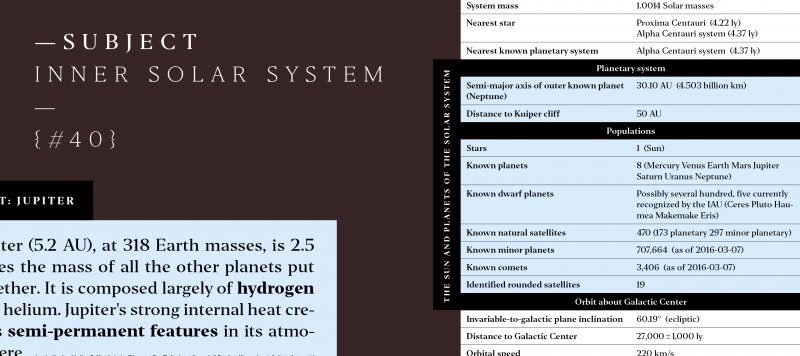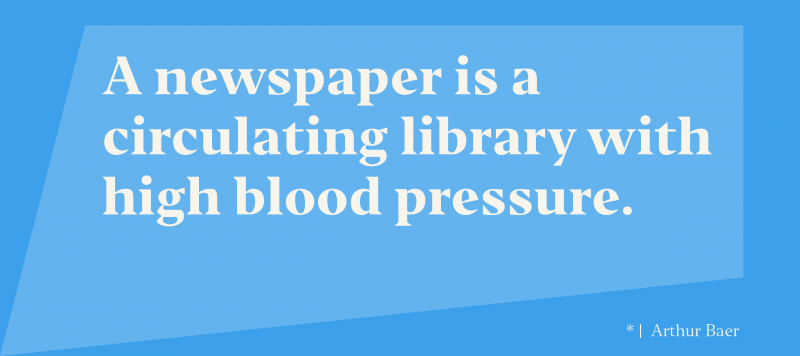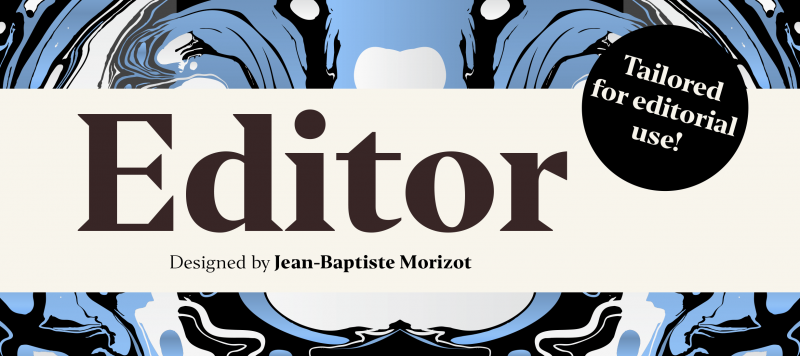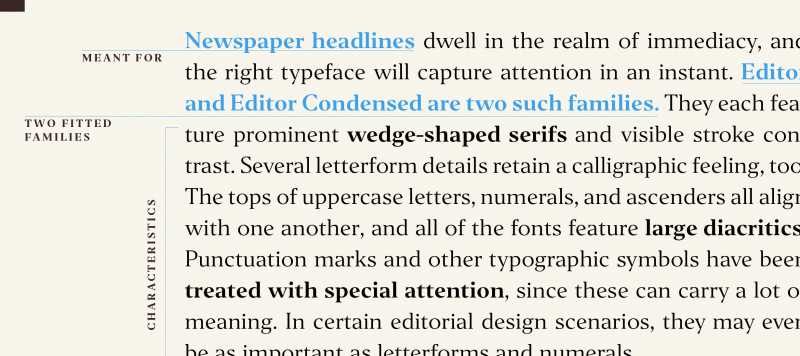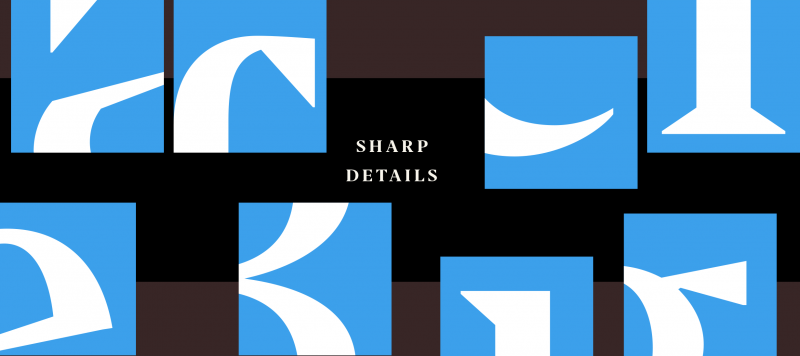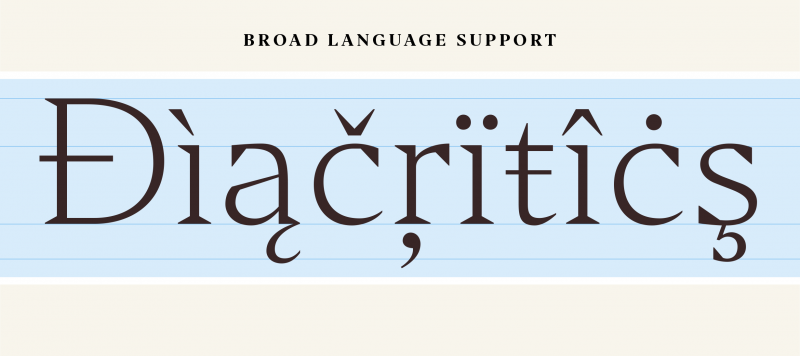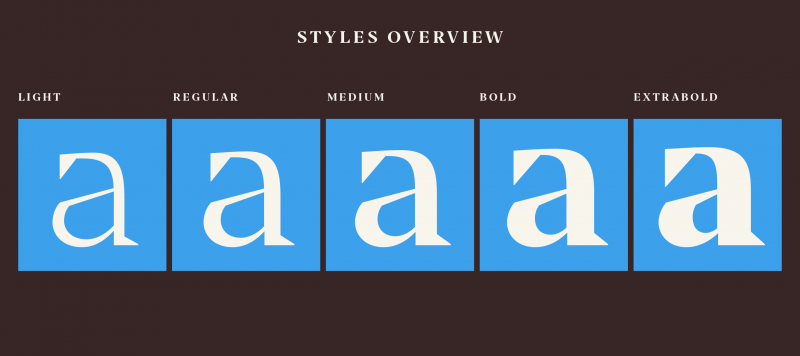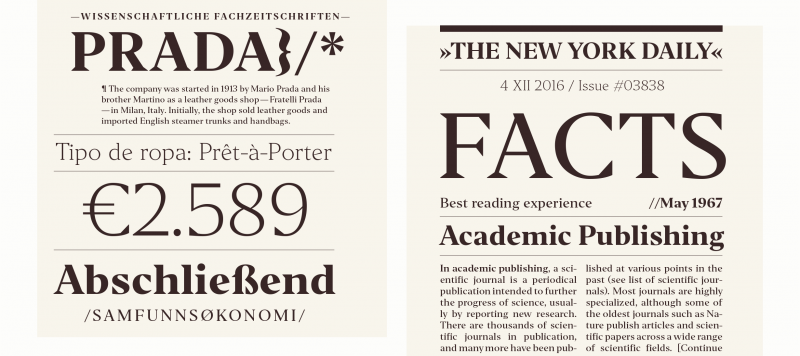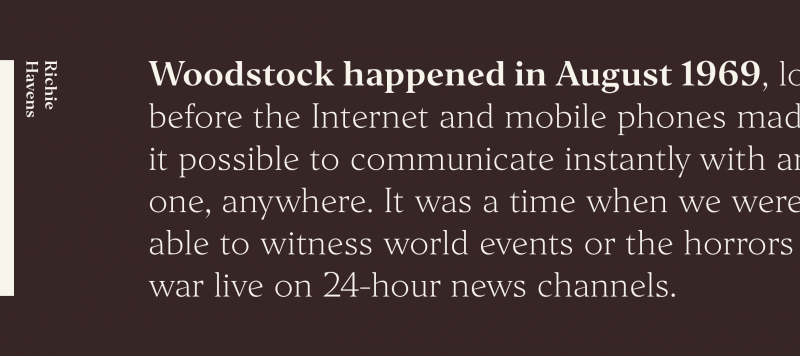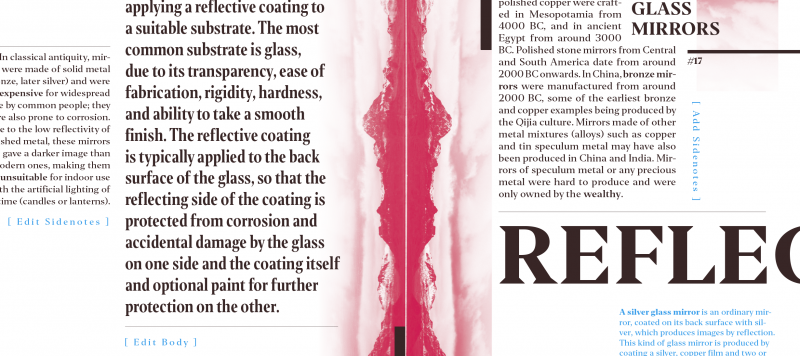
Newspaper headlines dwell in the realm immediacy, and the right typeface will capture attention in an instant. Editor and Editor Condensed are two such families. They each feature prominent wedge-shaped serifs and visible stroke contrast. Several letterform details retain a calligraphic feeling, too. The tops of uppercase letters, numerals, and ascenders all align with one another, and all of the fonts feature large diacritics.
Family Name Editor
Designer(s) Jean-Baptiste Morizot
Classification Serif